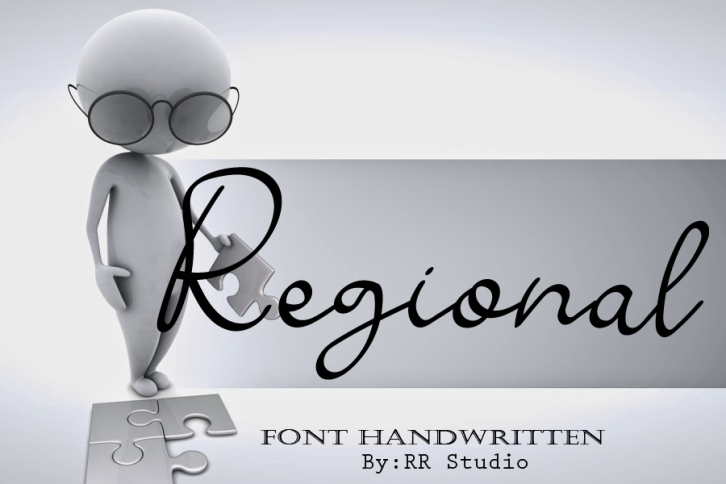
Regional is a sweet and cursive handwritten font. This gentle font will look gorgeous on a variety of design ideas. It will add a joyful and romantic touch to each of your projects!